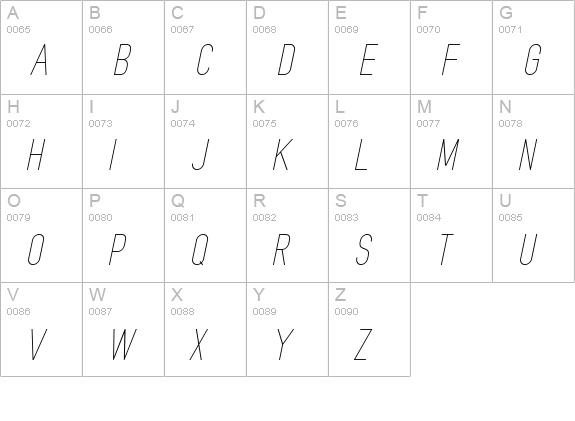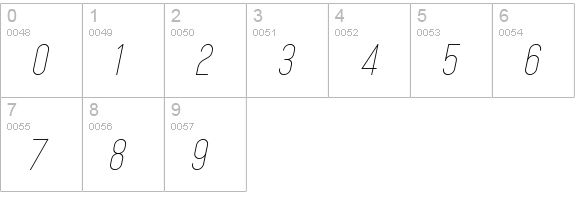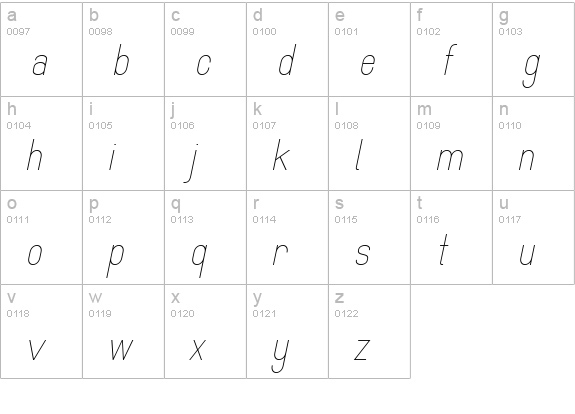
MindBlue Light Italic is a refined, elegant, italic variant in the MindBlue typeface family \xE2\x80\x94 well suited to elegant body text, refined sub-headings, and luxury branding.
MindBlue Light Italic font is a stunning and elegant typeface that exudes a sense of sophistication and modernity. Its sleek and slender letterforms are delicately slanted, adding a touch of dynamism and creativity to any design project. With its gentle curves and graceful strokes, MindBlue Light Italic font is perfect for adding a touch of class to any text. Whether it's used for headings, body text, or even logos, this font effortlessly captures attention and leaves a lasting impression. The delicate balance between its light weight and italic slant gives MindBlue Light Italic font a sense of playfulness and versatility. It can be used to convey a range of emotions and moods, from elegance and refinement to creativity and modernity. But what sets MindBlue Light Italic font apart is not just its stunning design, but also its accessibility. This font is freely available to download at FontsMarket.com, allowing designers and creatives to bring their visions to life without any limitations. Whether you're working on a personal project or a professional design, MindBlue Light Italic font is the perfect choice. Its unique combination of elegance, versatility, and accessibility makes it a valuable addition to any designer's toolkit. So go ahead and download this beautiful font today from FontsMarket.com and let your creativity soar.